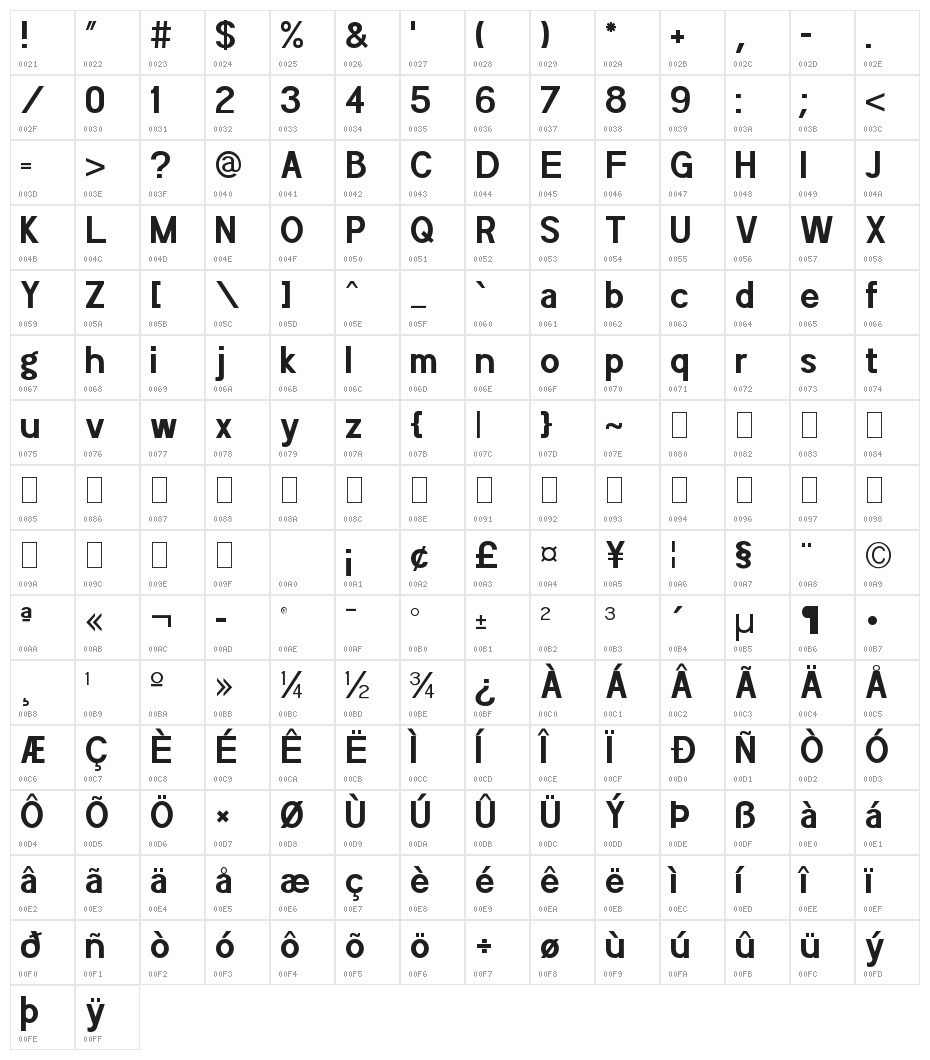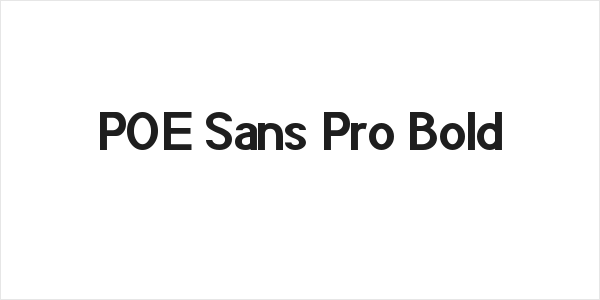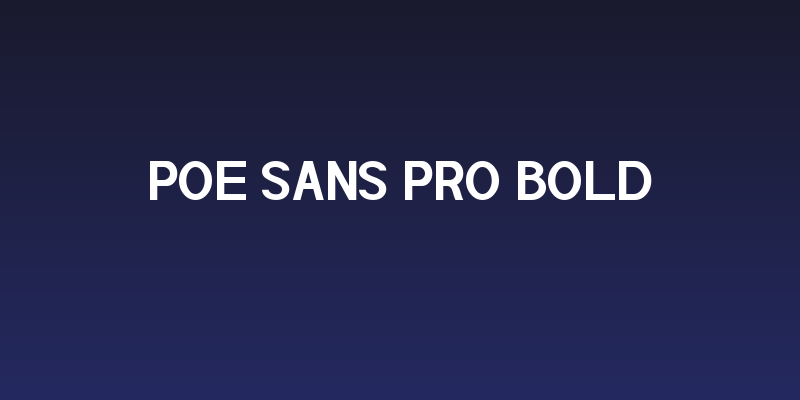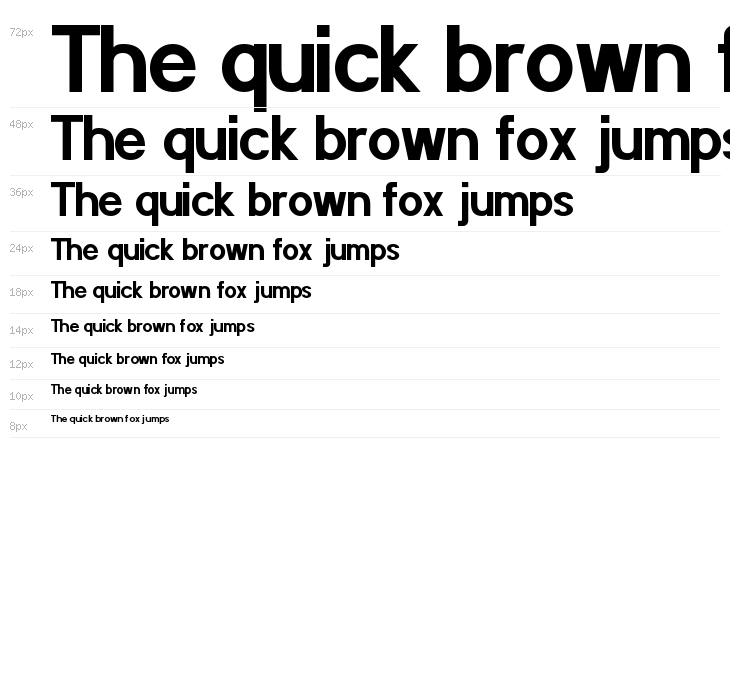
POE Sans Pro Bold Font
POE Sans Pro Bold Description
This font features a clean and modern sans-serif design with bold, uniform strokes that convey a sense of strength and clarity. The uppercase and lowercase letters are well-proportioned, with a consistent weight throughout, making it highly legible. The numerals are straightforward and align perfectly with the overall style, while the special characters are distinct and easily recognizable. The font's simplicity and boldness make it versatile for various design applications.
Use CaseHeadlines, Logos, Digital interfaces
Proposed ProjectsIdeal for branding, advertising, headlines, and digital interfaces where clarity and impact are essential.